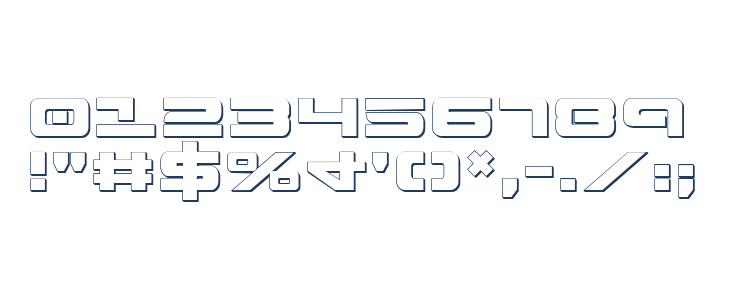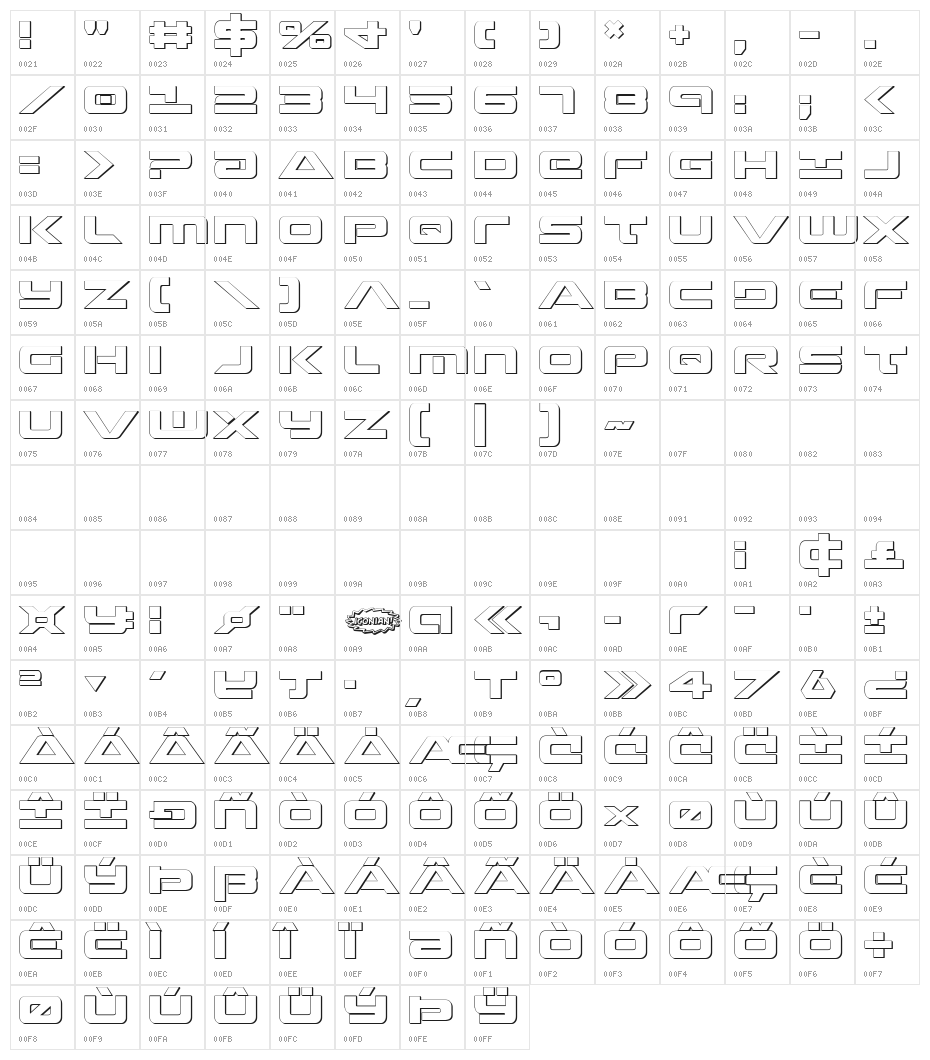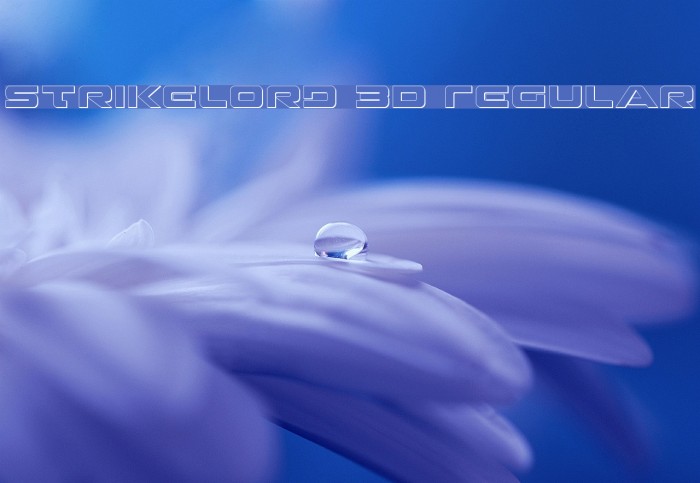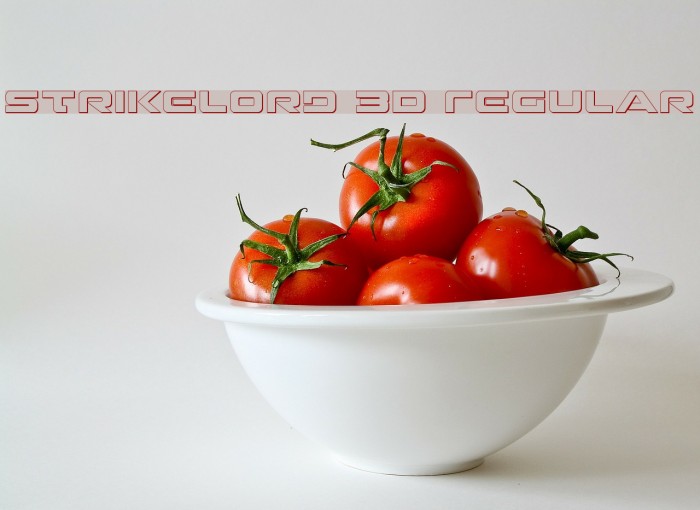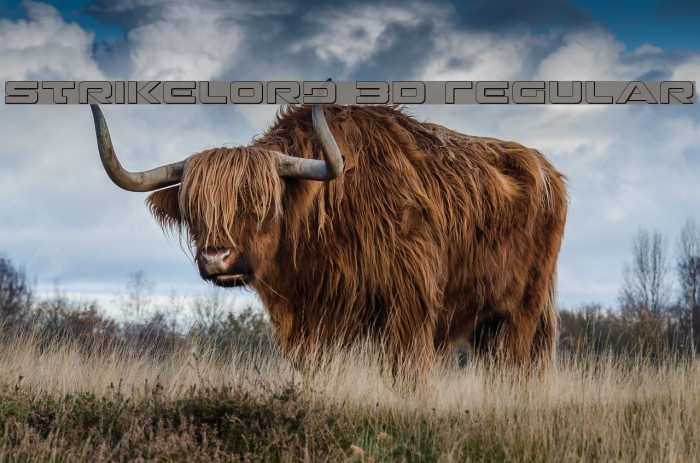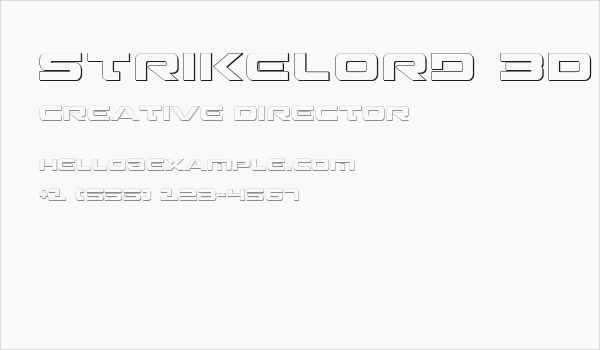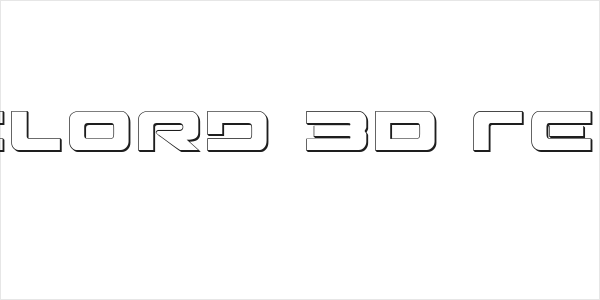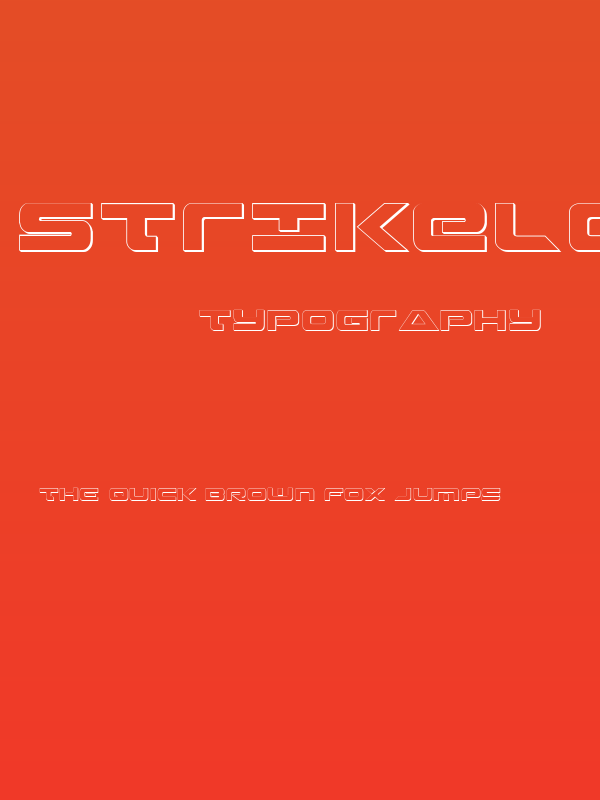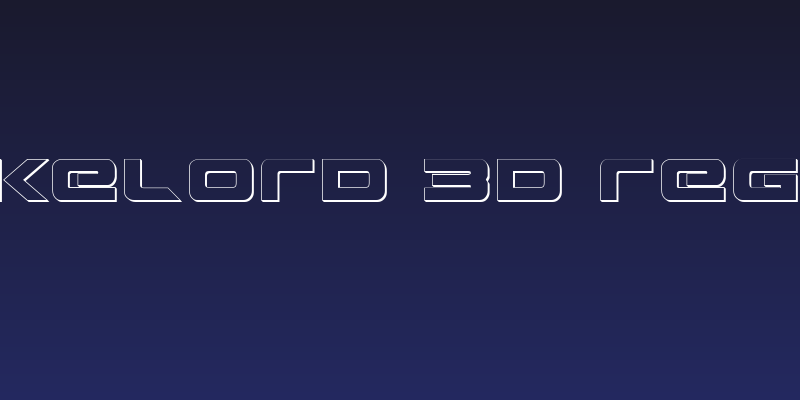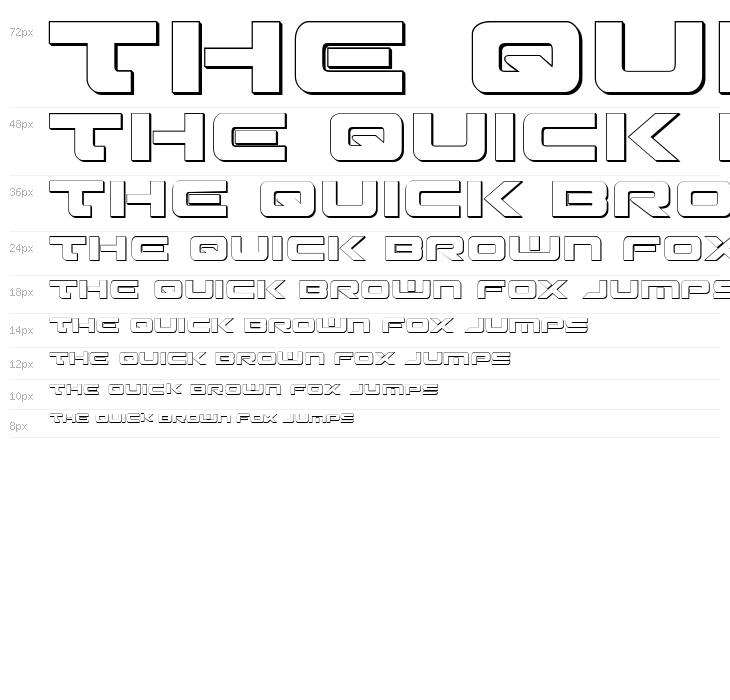
Strikelord 3D Regular Font
Strikelord 3D Regular Description
This font features a bold, geometric design with a 3D effect that gives it a futuristic and dynamic appearance. The characters are outlined, creating a hollow effect that enhances the three-dimensional look. The angular shapes and straight lines contribute to a modern and tech-inspired aesthetic. The uppercase letters are particularly striking, with a consistent height and width that maintain uniformity across the alphabet. The numerals and special characters follow the same design principles, ensuring a cohesive look throughout. This font is ideal for projects that require a strong visual impact and a contemporary feel.
| Proposed Projects | Perfect for technology branding, video game titles, futuristic posters, and digital media. |